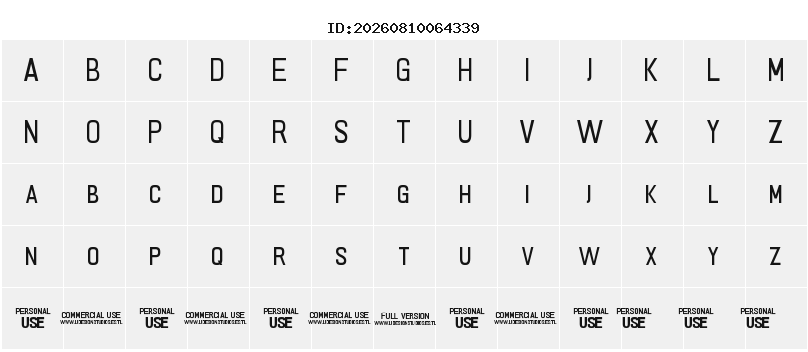
PRIMERA Preview
• Font Name: PRIMERA
• Designer: Luis Jaramillo, Jonathan Harris, Juan Navarro, Andres Jimenez, Alú Jaramillo, María Quintero, Gustavo Perez
• Manufacturer: LJ-Design Studios
About PRIMERA.ttf
PRIMERA.ttf is a modern, elegant sans-serif font designed for ultimate readability and visual harmony. Perfect for branding, headlines, web design, and print materials.